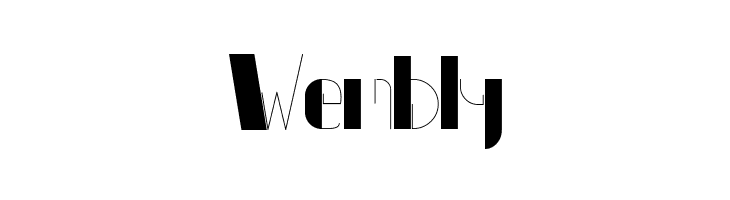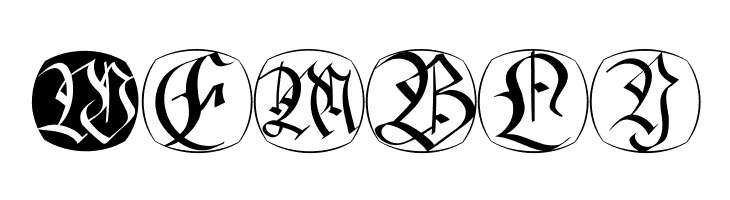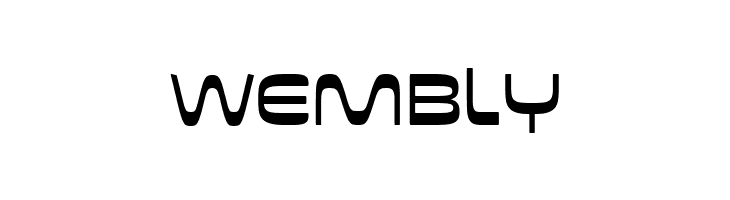
A bold, geometric font with hexagonal borders and a futuristic aesthetic.
A futuristic, geometric font with rounded edges and uniform strokes.
A bold, Gothic font with decorative, medieval-inspired elements.
A bold, condensed, and italic font with a futuristic and angular design.
A bold, italicized font with a futuristic and angular design.
A bold, modern font with a stencil-like, futuristic design.
A playful, blocky font with a digital, pixel-art style.
A bold, geometric font with intricate line patterns, perfect for modern designs.
A bold, decorative font with concentric circle patterns creating depth and movement.
A bold, Western-style font with thick, angular serifs and a strong presence.
A collection of illustrated male faces replacing traditional characters.
A bold, decorative font with a hollow, outlined design and modern appeal.
A bold, distressed font with a vintage, textured appearance.
A bold, rounded font with a modern and playful geometric style.
A bold, geometric font with a three-dimensional effect and tight spacing.
A bold, three-dimensional font with a geometric, architectural style.
A distressed, grungy font with a chaotic, textured appearance.
A humorous, hand-drawn cartoon character set with playful and exaggerated styles.
A modern, high-contrast decorative font with bold geometric elements.
A futuristic, geometric font with rounded edges and a sleek design.
A bold, playful font with geometric and organic elements, ideal for creative projects.
A pixelated, retro-style font inspired by classic video games.
A playful, hand-drawn style font with bold, irregular characters and a whimsical flair.
A futuristic, geometric font with blocky, uniform letterforms enclosed in squares.
A quirky, decorative font with surreal, illustrated stick-figure characters.
Abstract, creature-inspired decorative font with hand-drawn style.